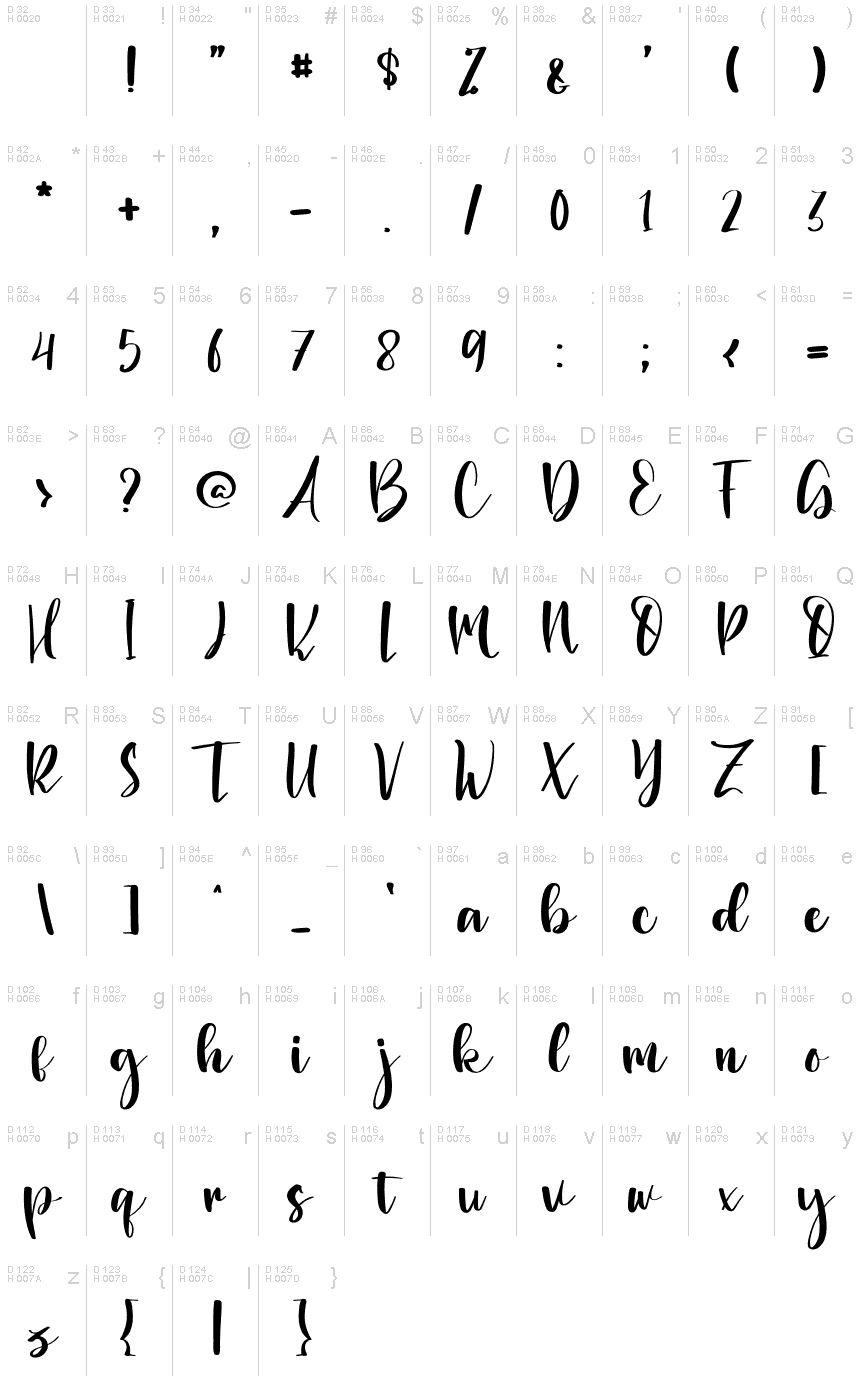
September
September, the charming handwritten font by FreshtypeINK, brings a touch of whimsy to any project. Its delicate curves and playful loops make it perfect for wedding invitations, greeting cards, and other elegant designs. The semi-bold font is versatile enough to work well in both print and digital media, while the medium width ensures legibility at any size. Whether you need a font for your next blog post or a branding project, September is sure to add a touch of personality and sophistication. Get creative and let this delightful typeface elevate your designs!